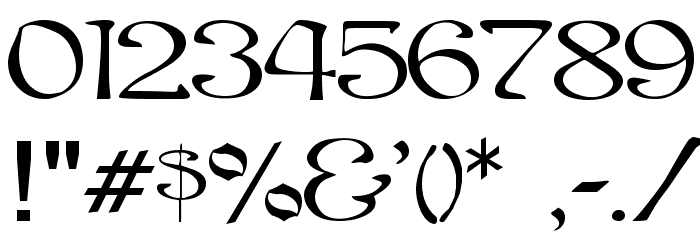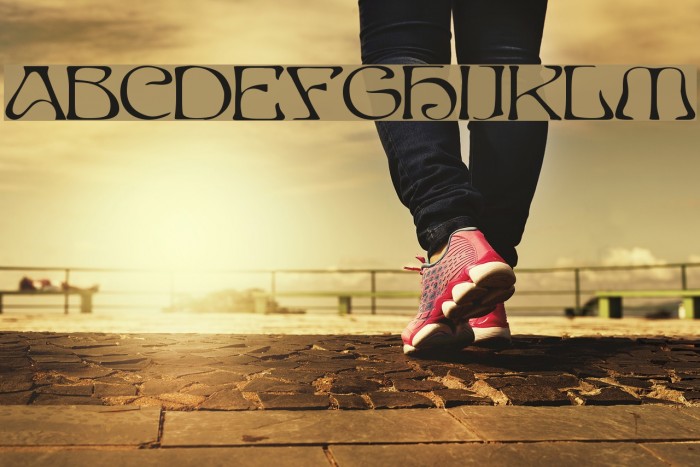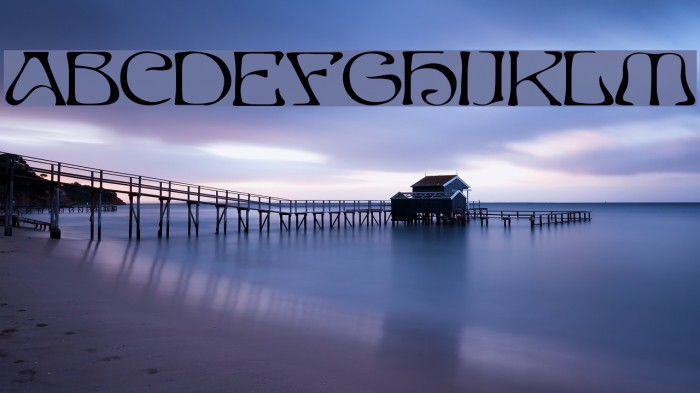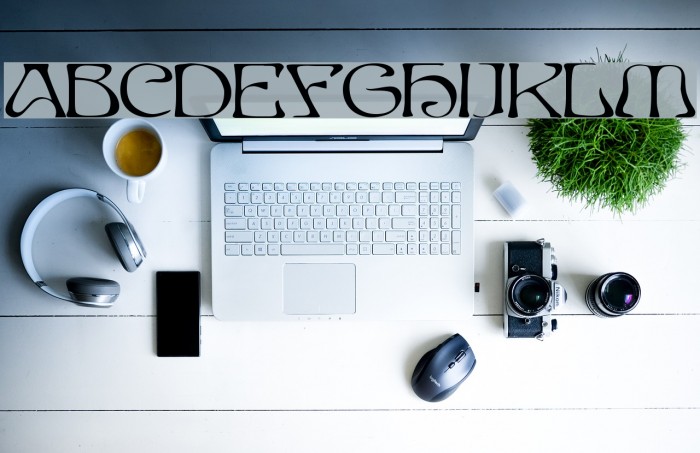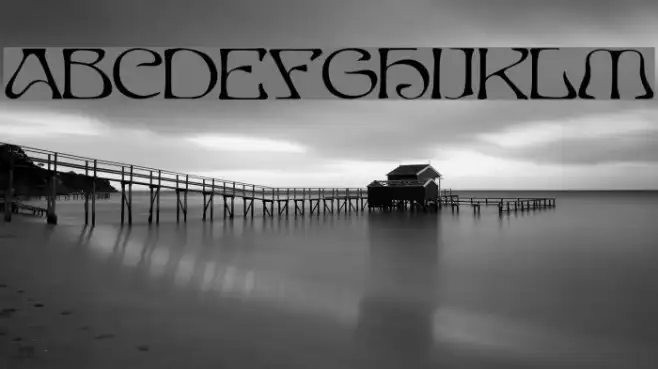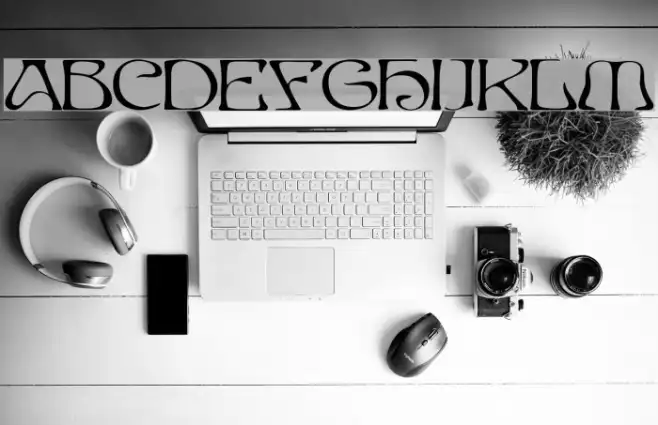
Lorient Font
This font features a unique and artistic design with a decorative flair. The characters exhibit a blend of sharp angles and smooth curves, creating a dynamic and eye-catching appearance. The uppercase letters are bold and prominent, while the lowercase letters maintain a consistent style with slightly more subtlety. Numbers and special characters are designed to match the overall aesthetic, ensuring a cohesive look across all text elements. The font's distinct style makes it suitable for creative and expressive projects, where a touch of elegance and sophistication is desired.
A decorative font with a blend of sharp angles and smooth curves, offering a dynamic and artistic style.
- Proposed Projects: Ideal for branding, logos, posters, and artistic projects that require a distinctive and elegant touch.
- Use Case: Logos, Headlines, Artistic projects